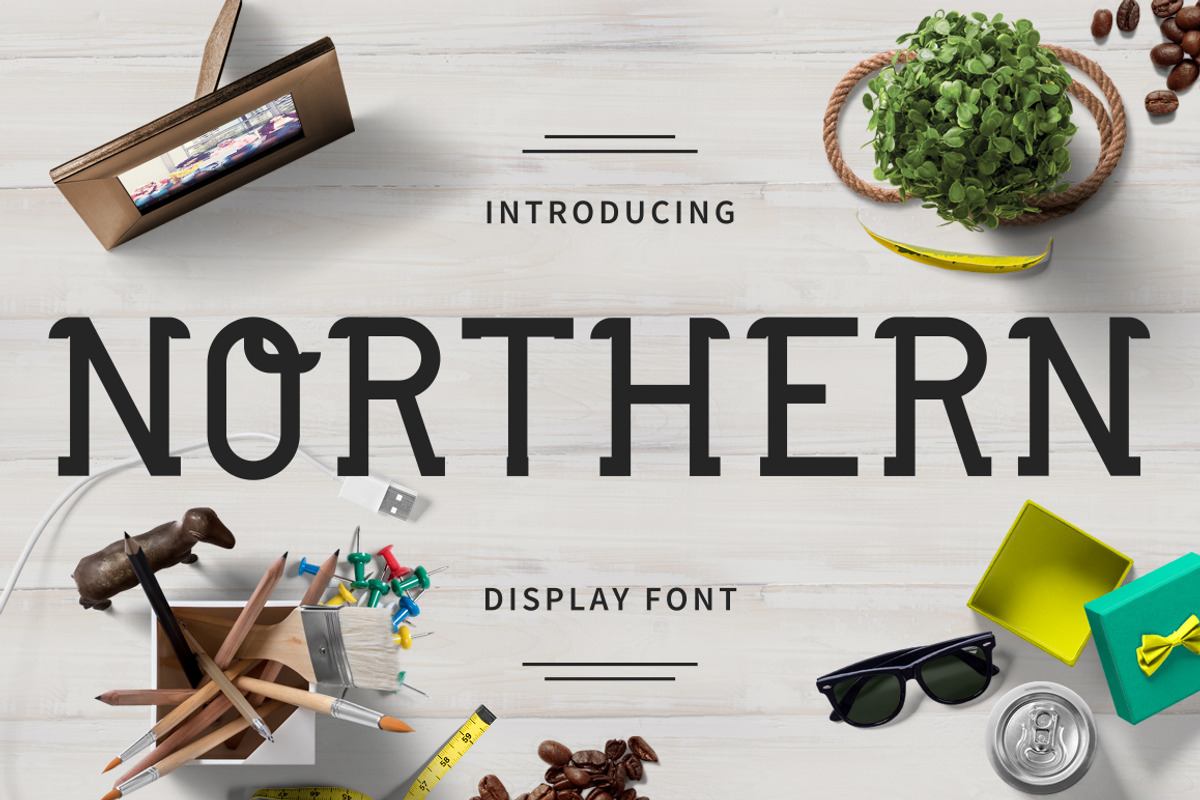
Northern Font Free Download is a sleek and modern typeface designed to add elegance and clarity to your designs. With its clean lines and balanced structure, this font is perfect for creating sophisticated logos, websites, branding, and editorial layouts. Its contemporary style makes it versatile enough for both professional and creative projects, offering both readability and style. Whether you're working on a corporate identity, a minimalist design, or promotional materials, Northern Font Free Download lets you explore its refined design in personal projects before purchasing a commercial license. Elevate your designs with the timeless simplicity and versatility of this beautiful font.